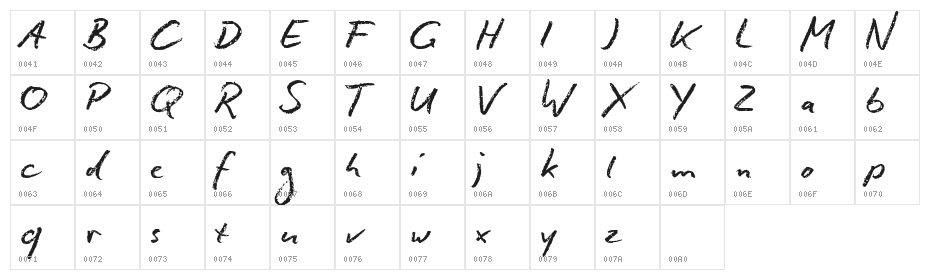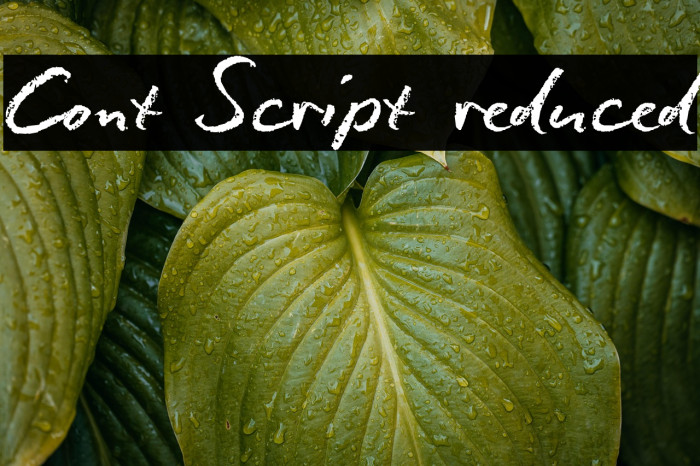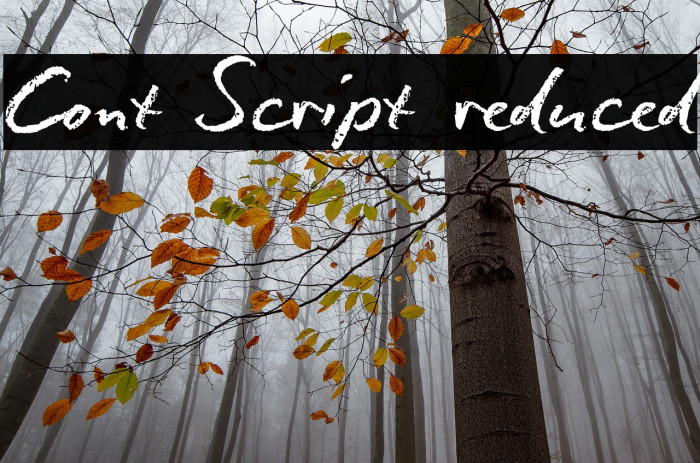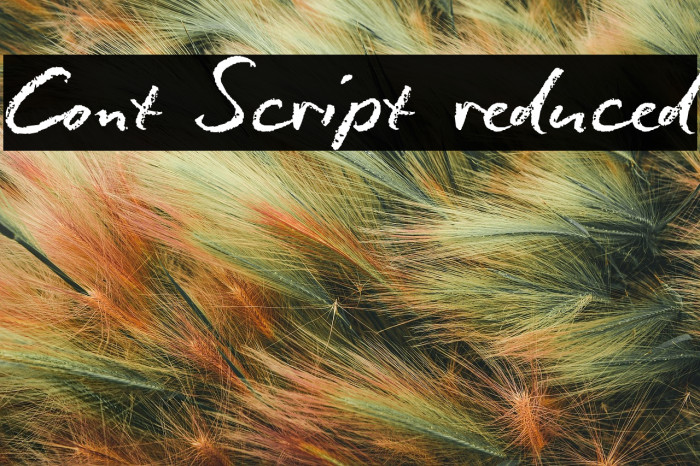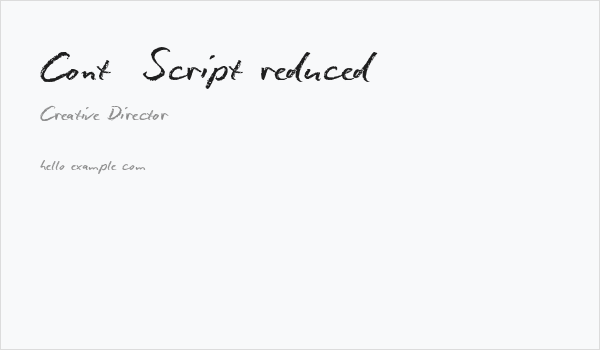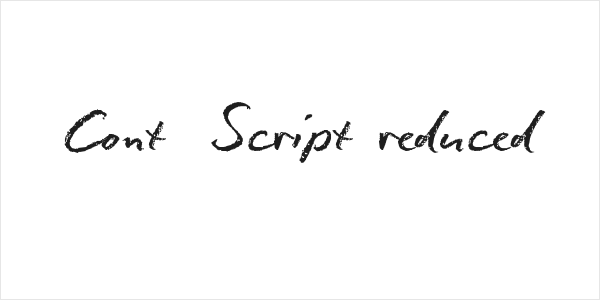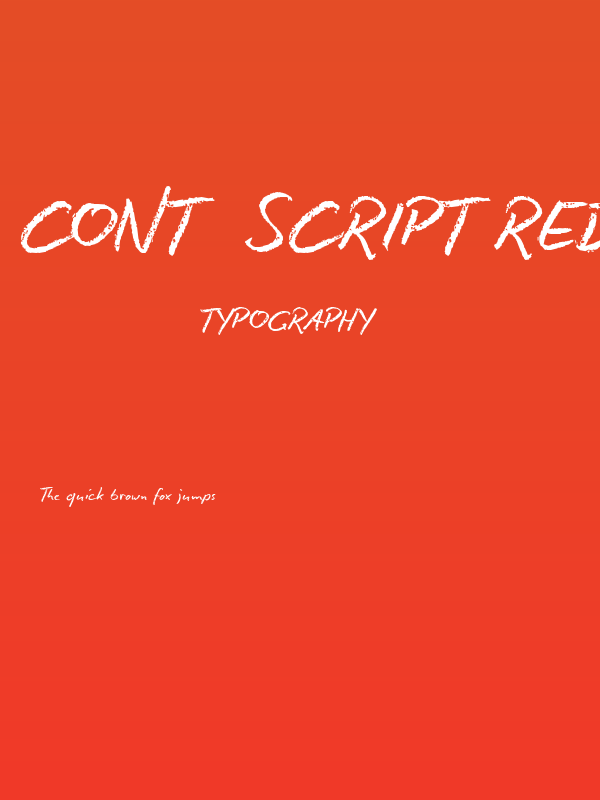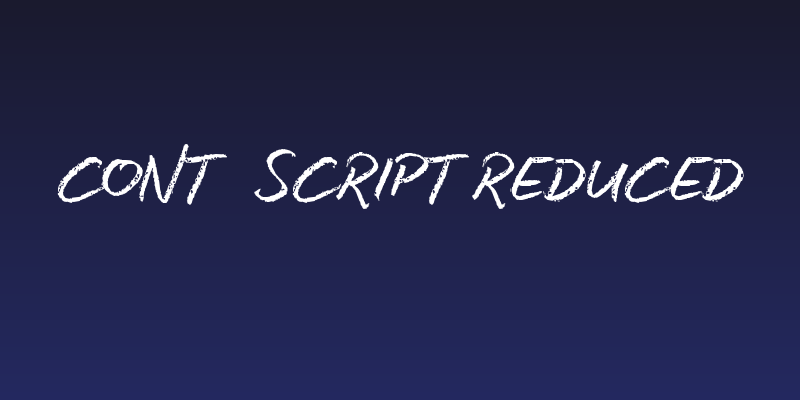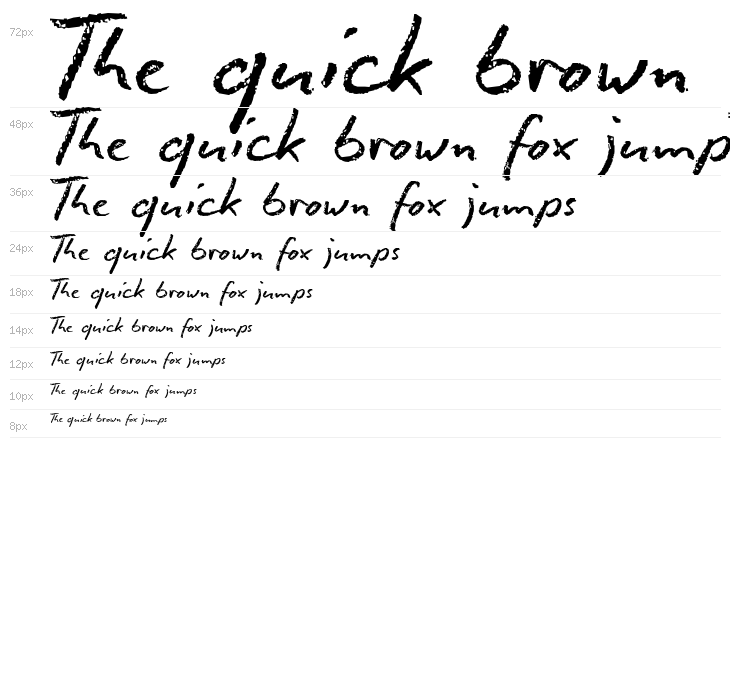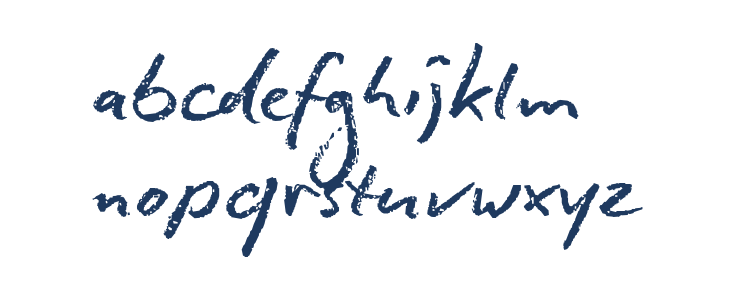
Conté Script reduced Font
Conté Script reduced Description
This font exhibits a dynamic and expressive style, characterized by its handwritten appearance with a textured, brush-like effect. The letters are slightly slanted, adding a sense of movement and fluidity. The strokes vary in thickness, creating a natural and organic feel. The uppercase and lowercase letters maintain a consistent style, with some letters featuring unique flourishes that enhance the overall aesthetic. The font's rough texture gives it a rustic and artistic quality, making it suitable for creative and informal applications.
| Use Case | Logos, Headlines, Creative projects |
| Proposed Projects | Ideal for artistic projects, invitations, greeting cards, and branding that requires a personal touch. |